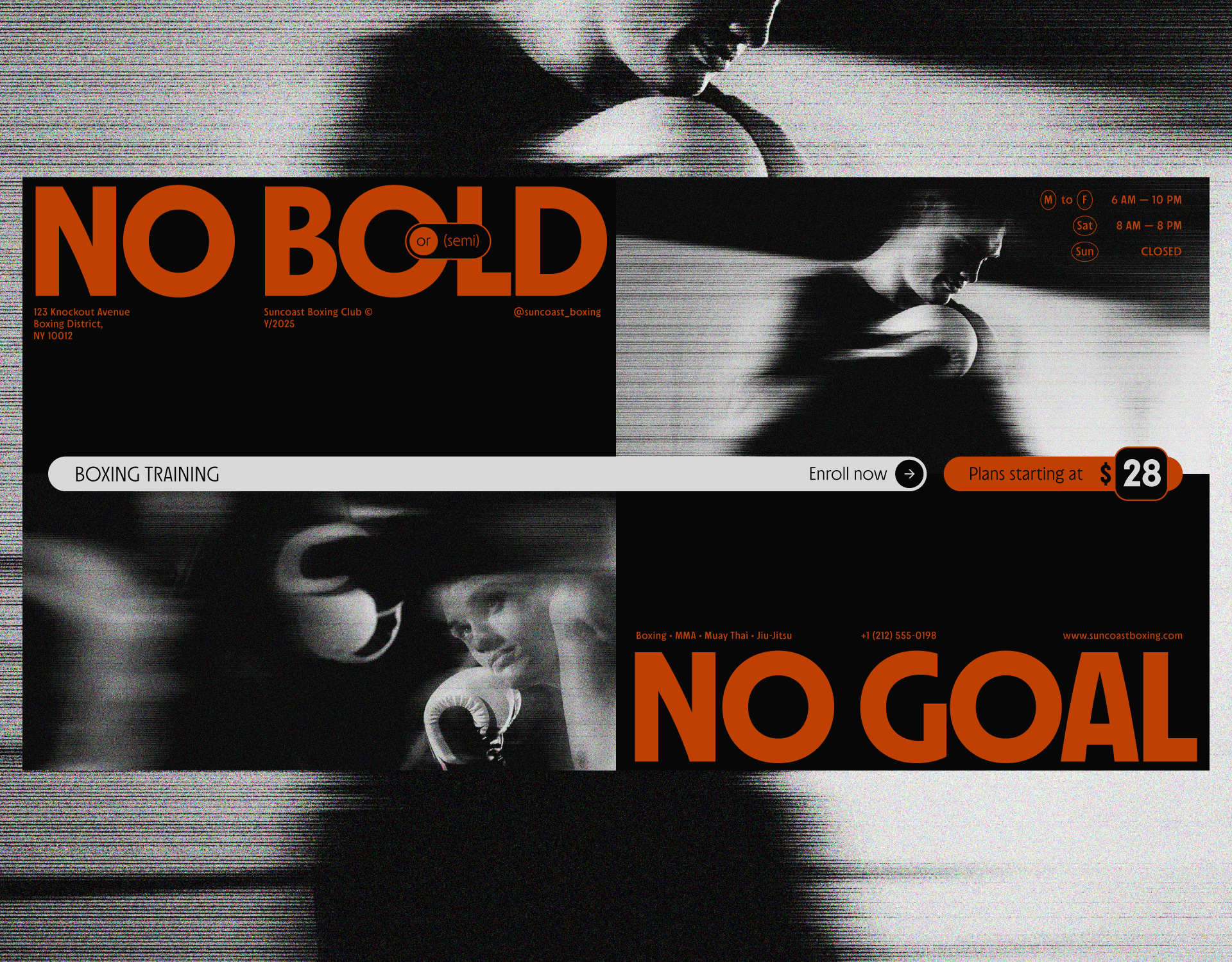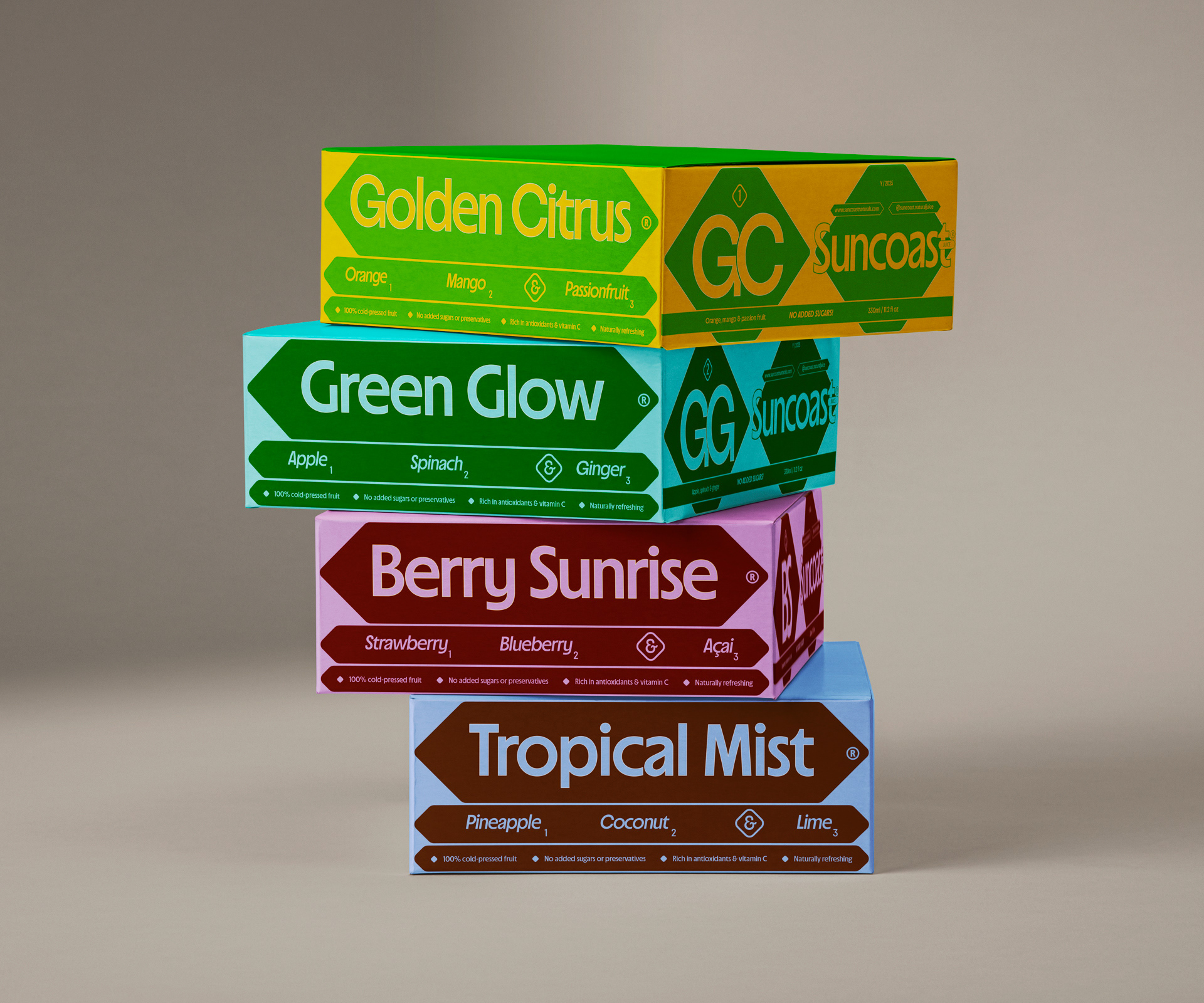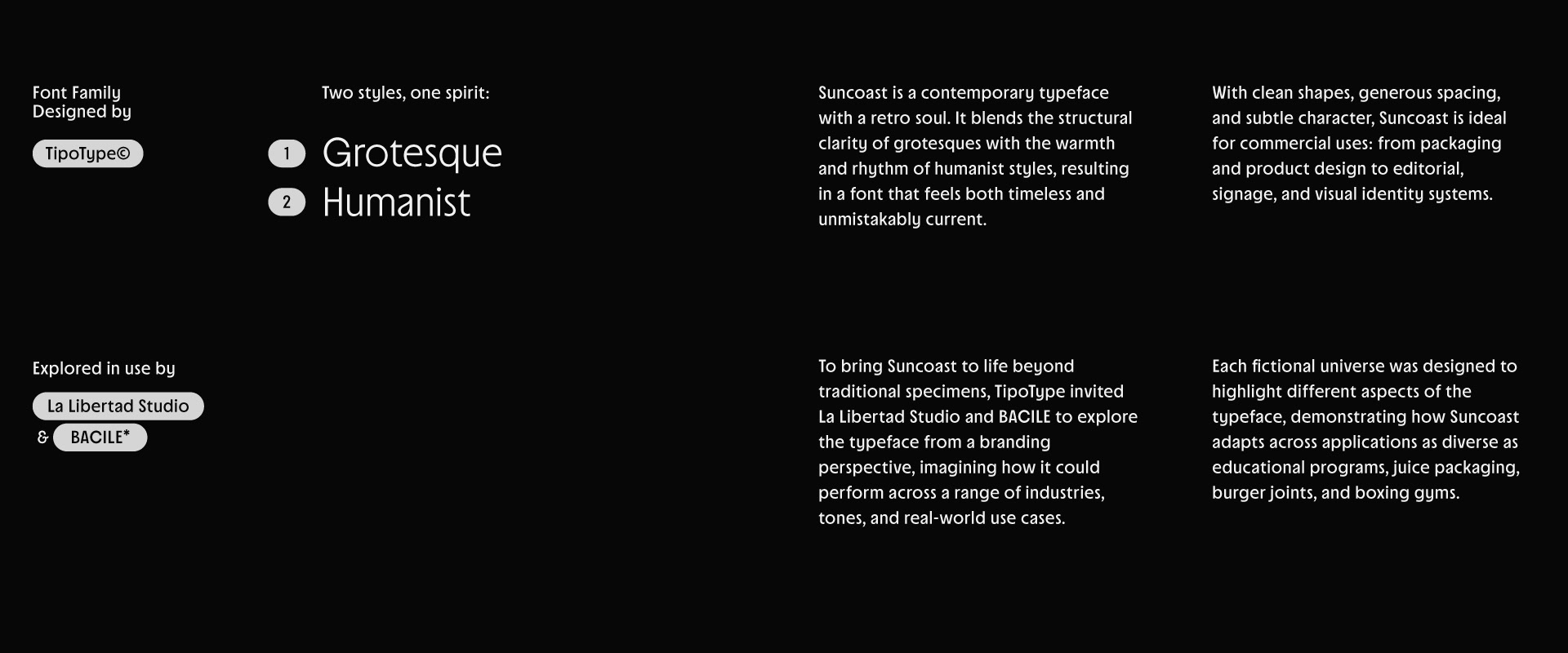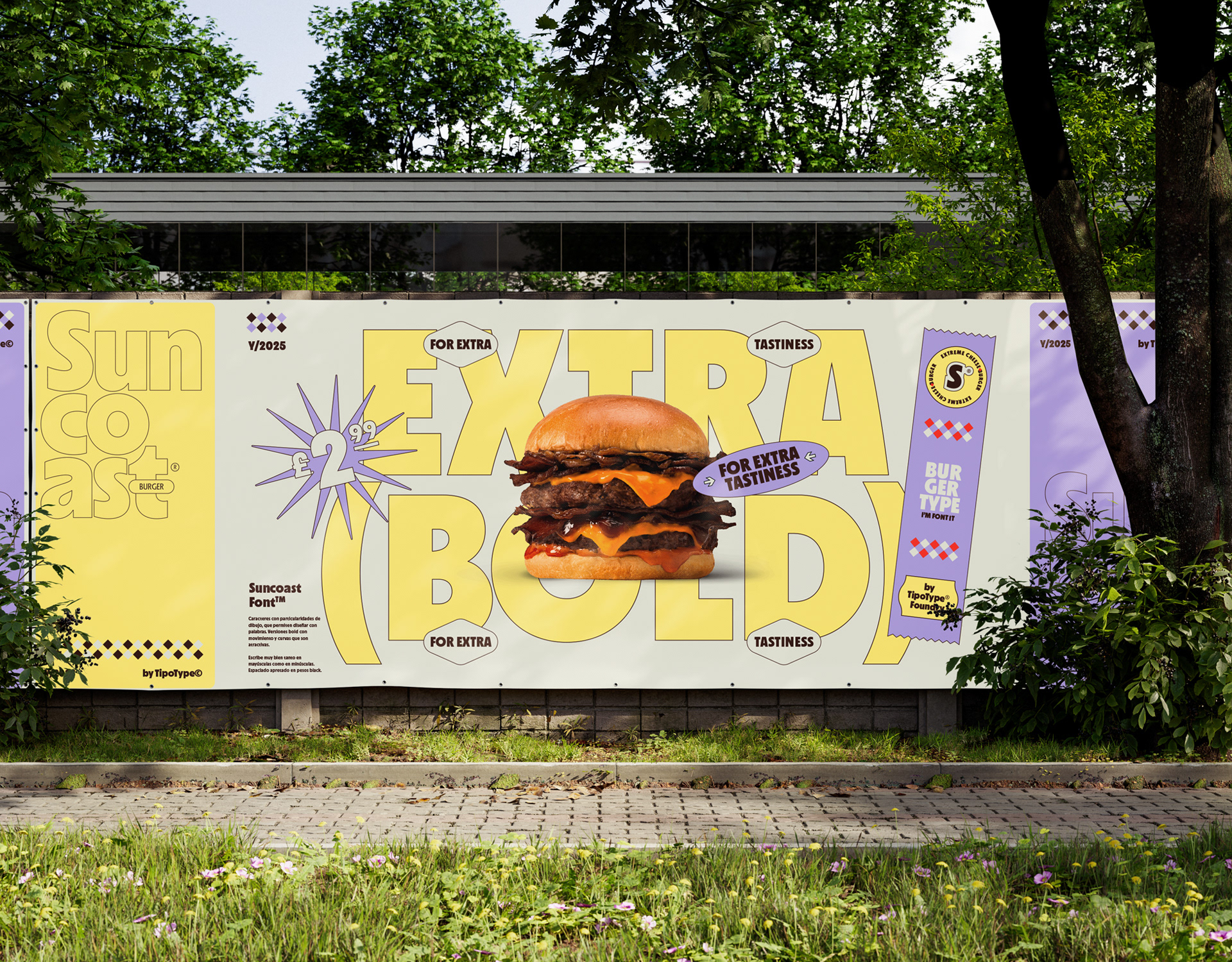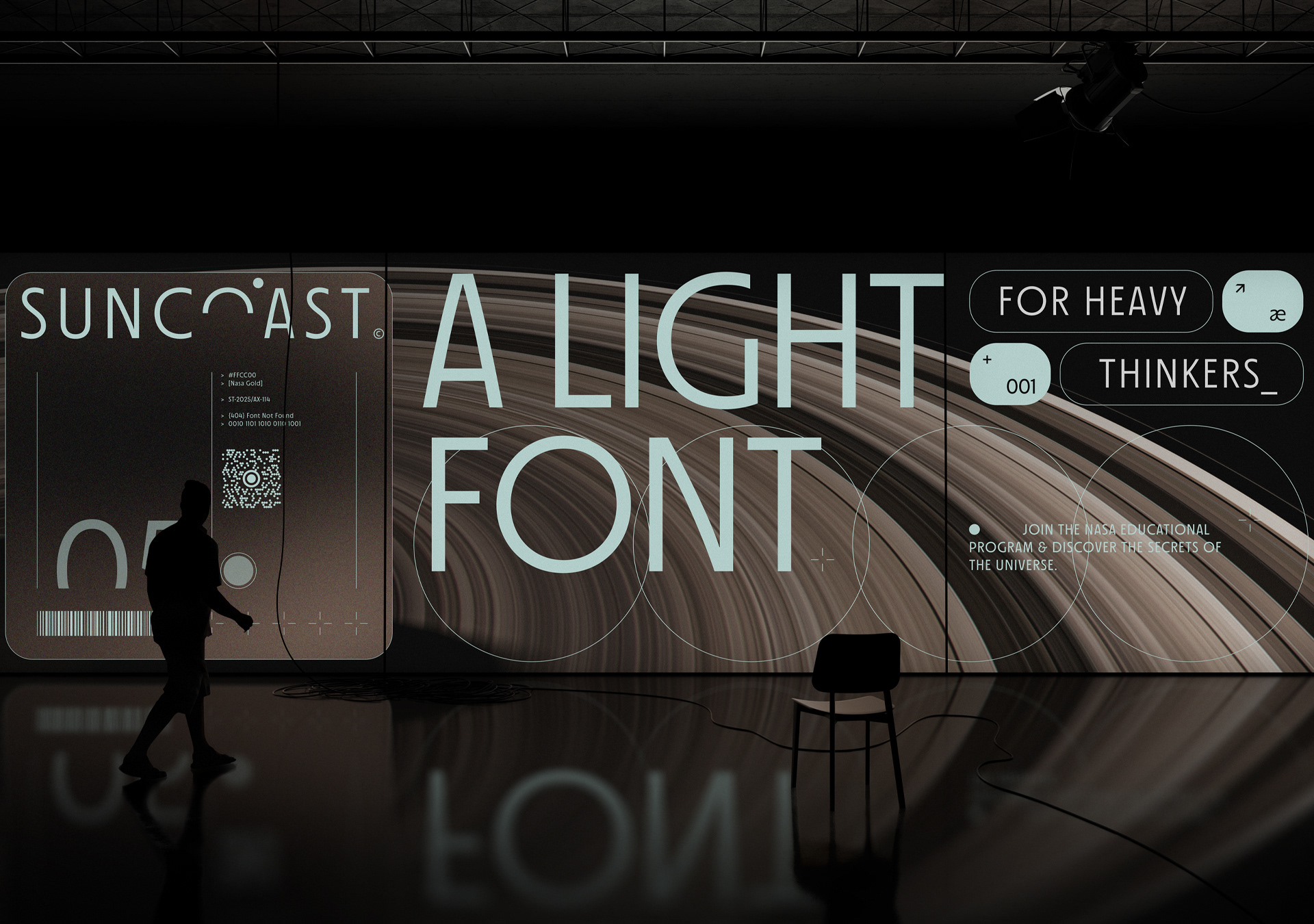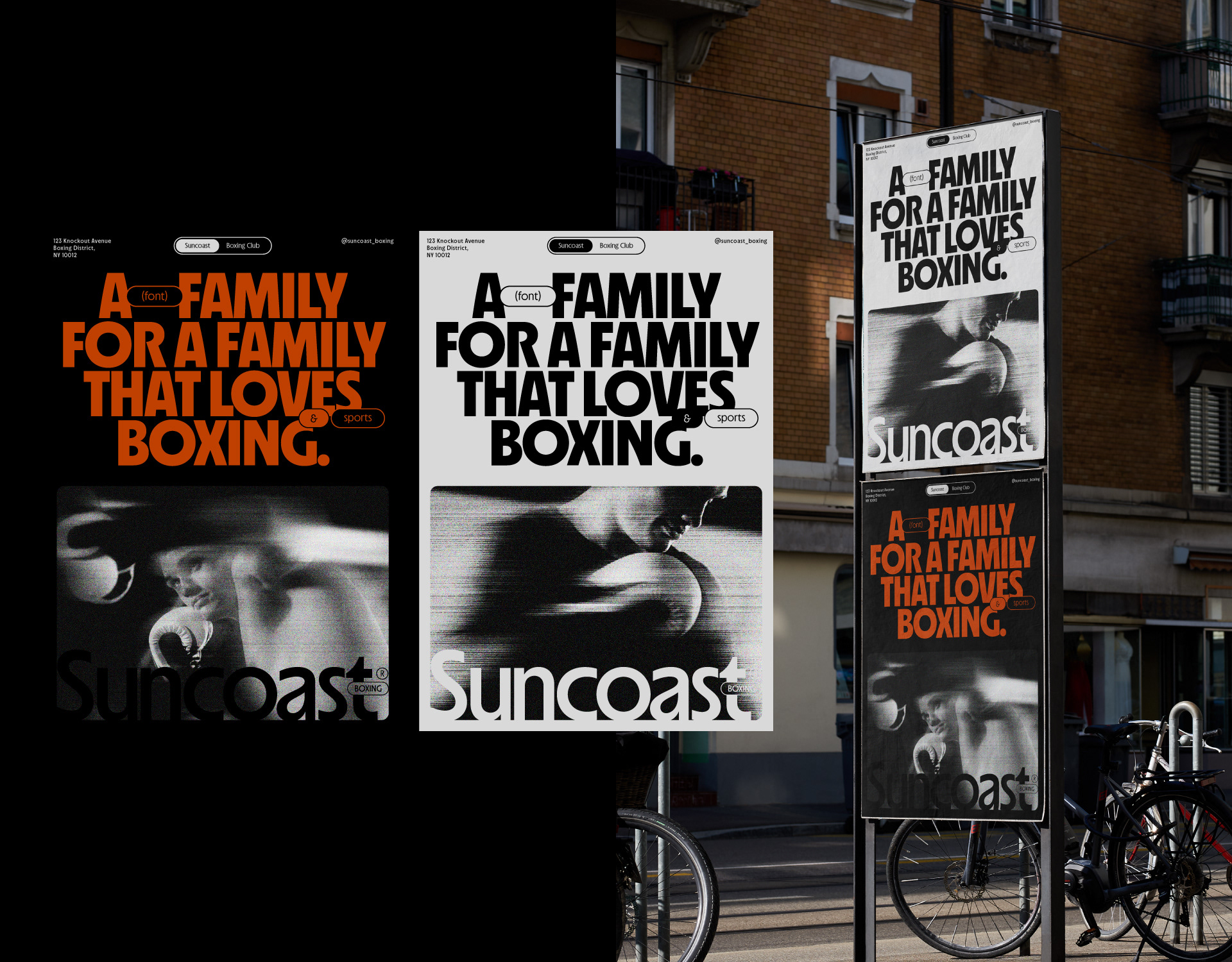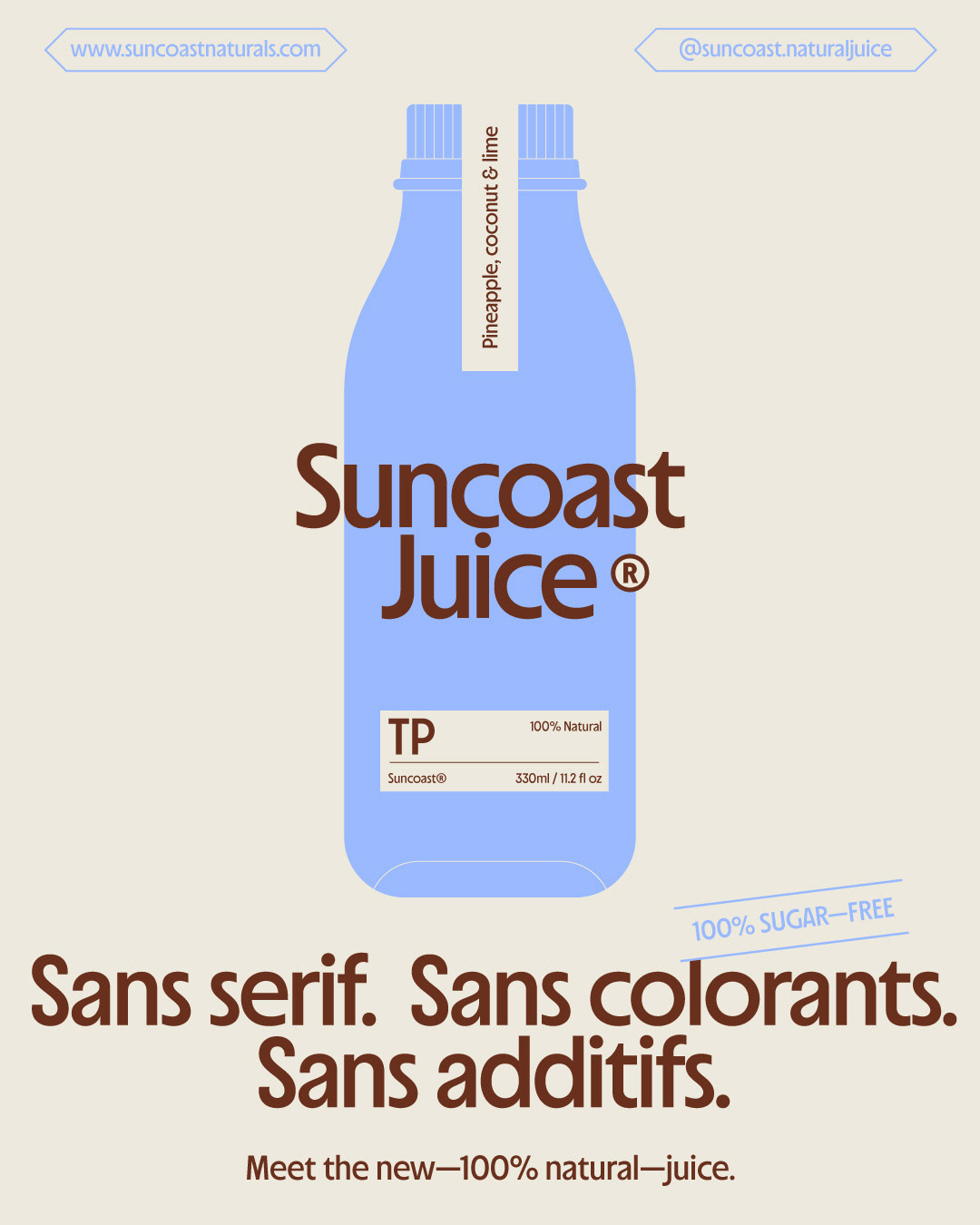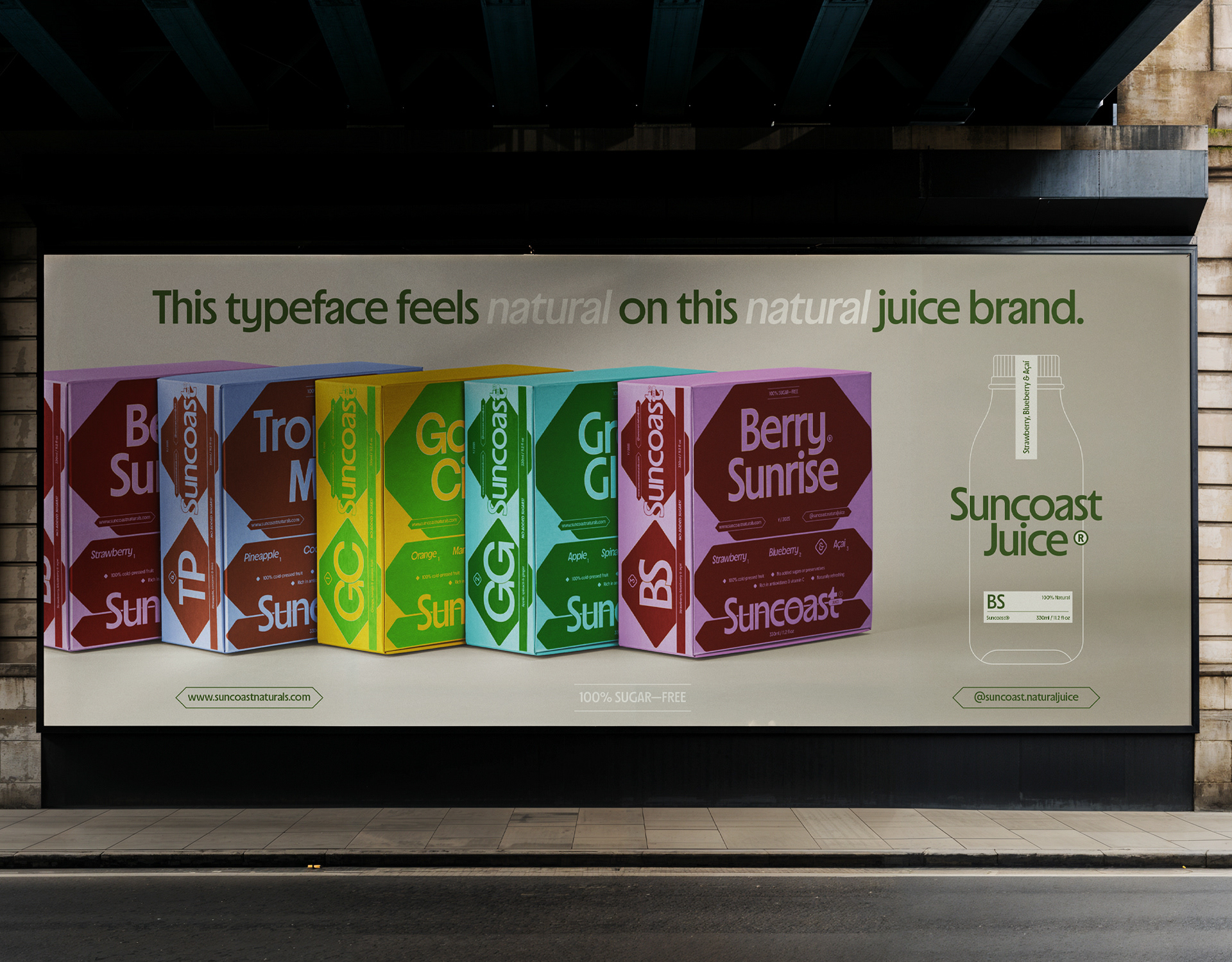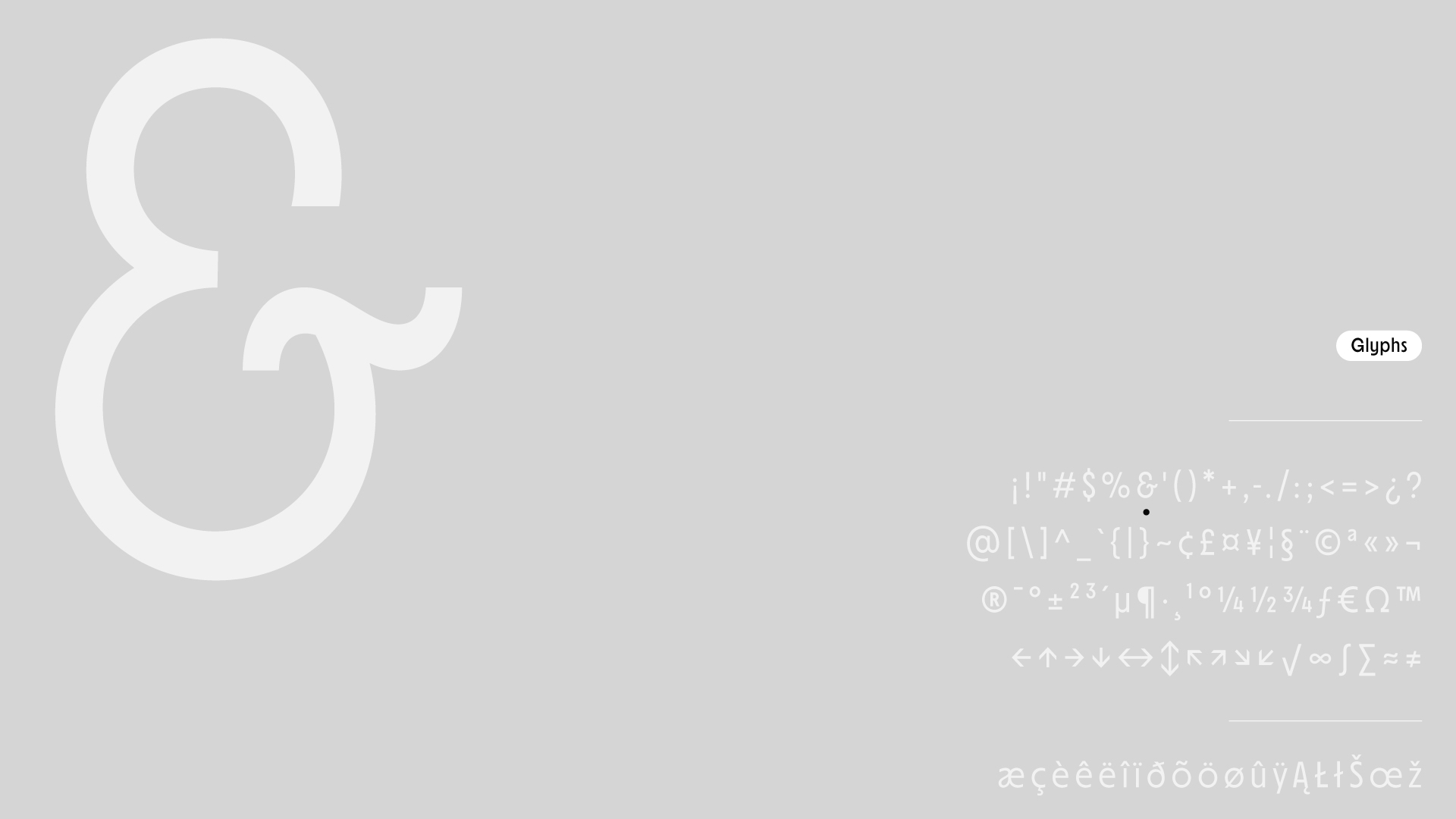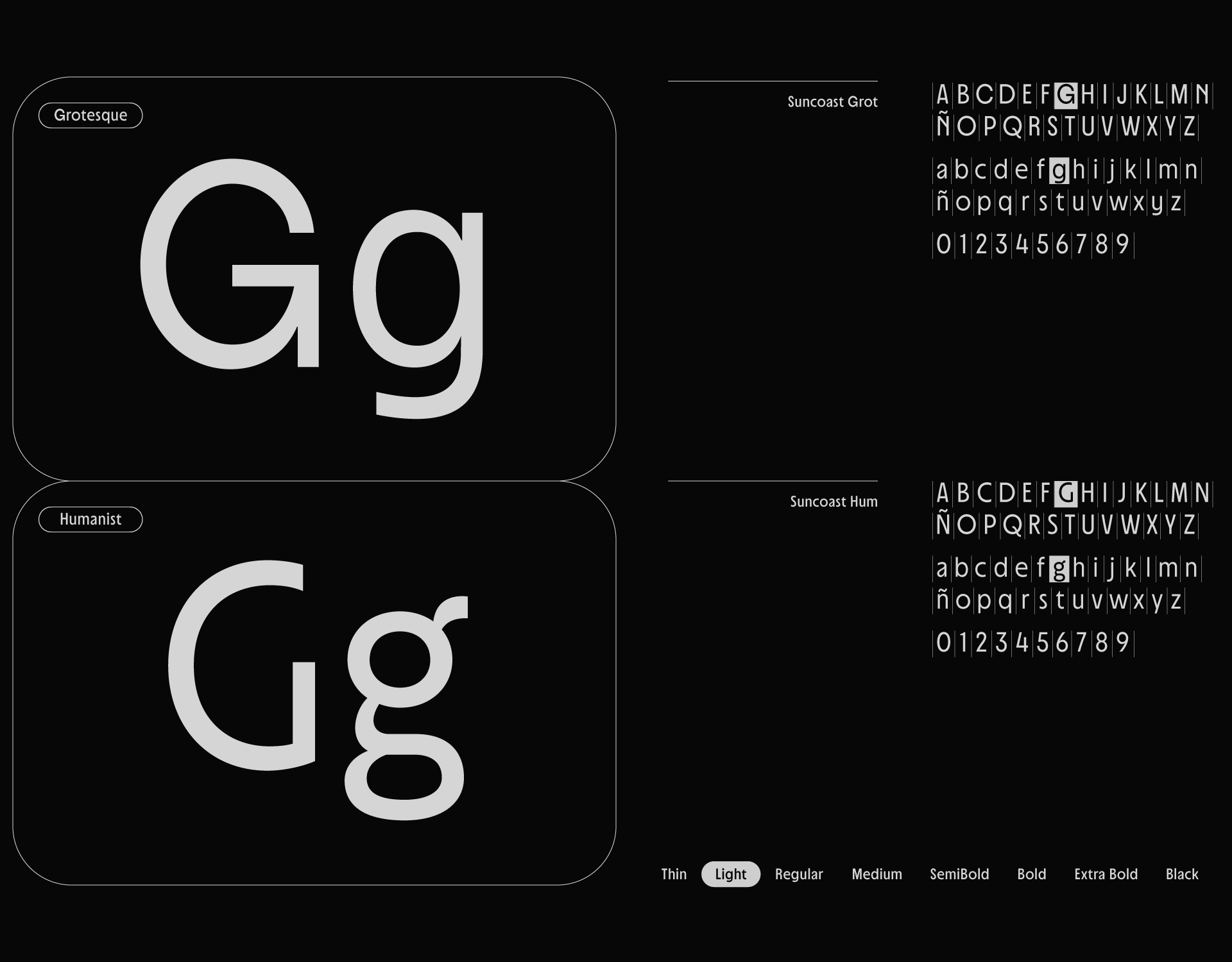
Suncoast is a contemporary typeface with a retro soul. It blends the structural clarity of grotesques with the warmth and rhythm of humanist styles, resulting in a font that feels both timeless and unmistakably current. With clean shapes, generous spacing, and subtle character, Suncoast is ideal for commercial uses: from packaging and product design to editorial, signage, and visual identity systems. To bring Suncoast to life beyond traditional specimens, TipoType invited La Libertad Studio and BACILE to explore the typeface from a branding perspective, imagining how it could perform across a range of industries, tones, and real-world use cases. Each fictional universe was designed to highlight different aspects of the typeface, demonstrating how Suncoast adapts across applications as diverse as educational programs, juice packaging, burger joints, and boxing gyms. Now available at tipotype.com with a launch promo. Happy designing!